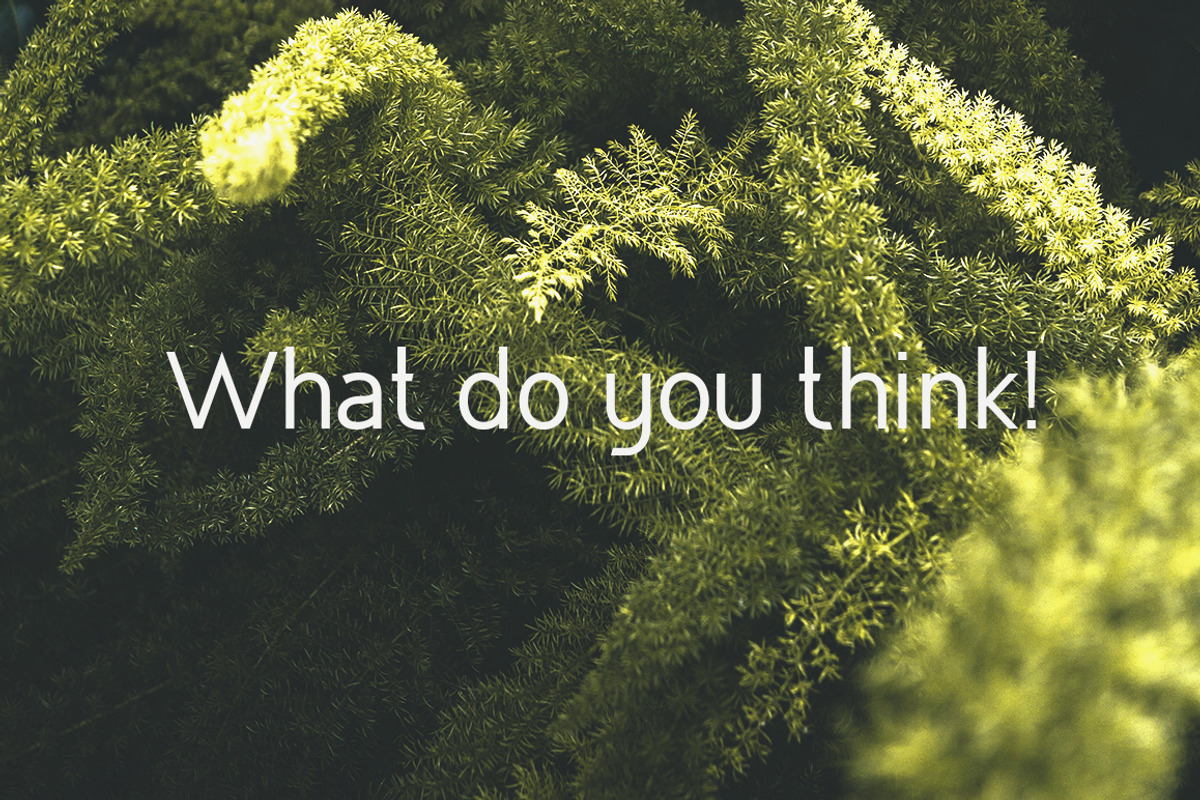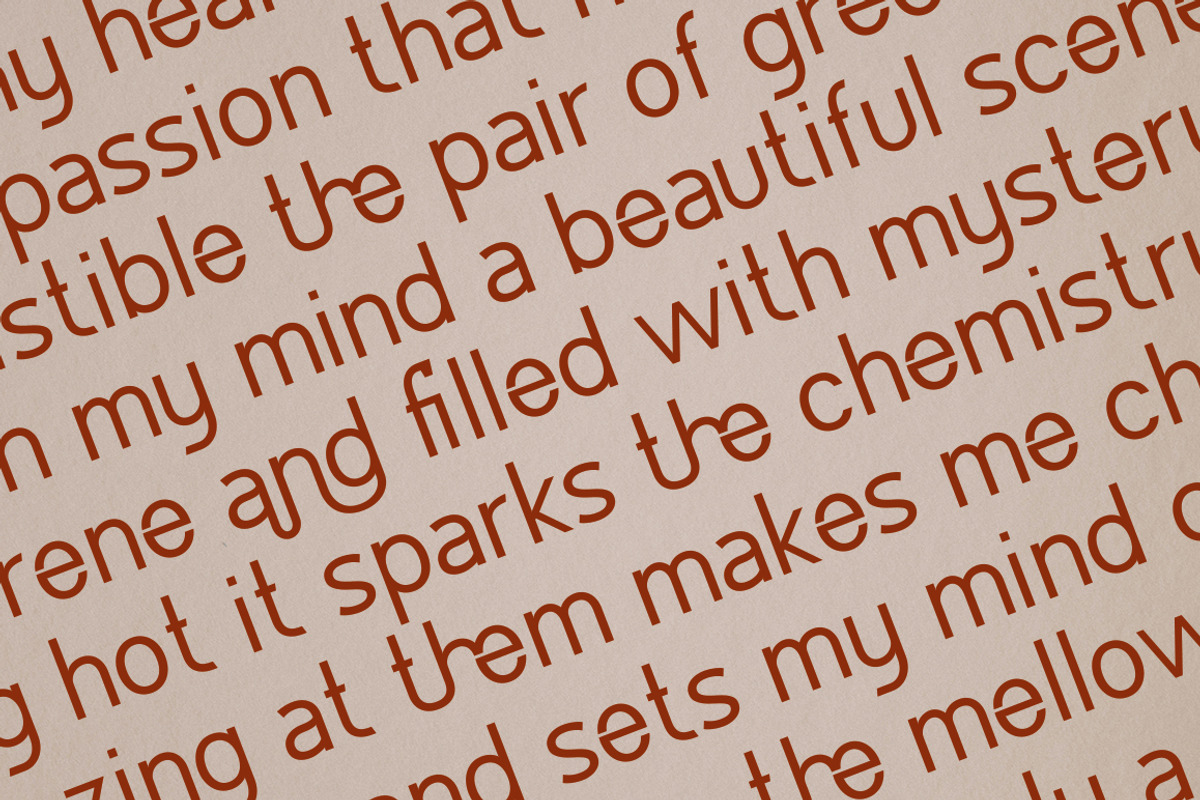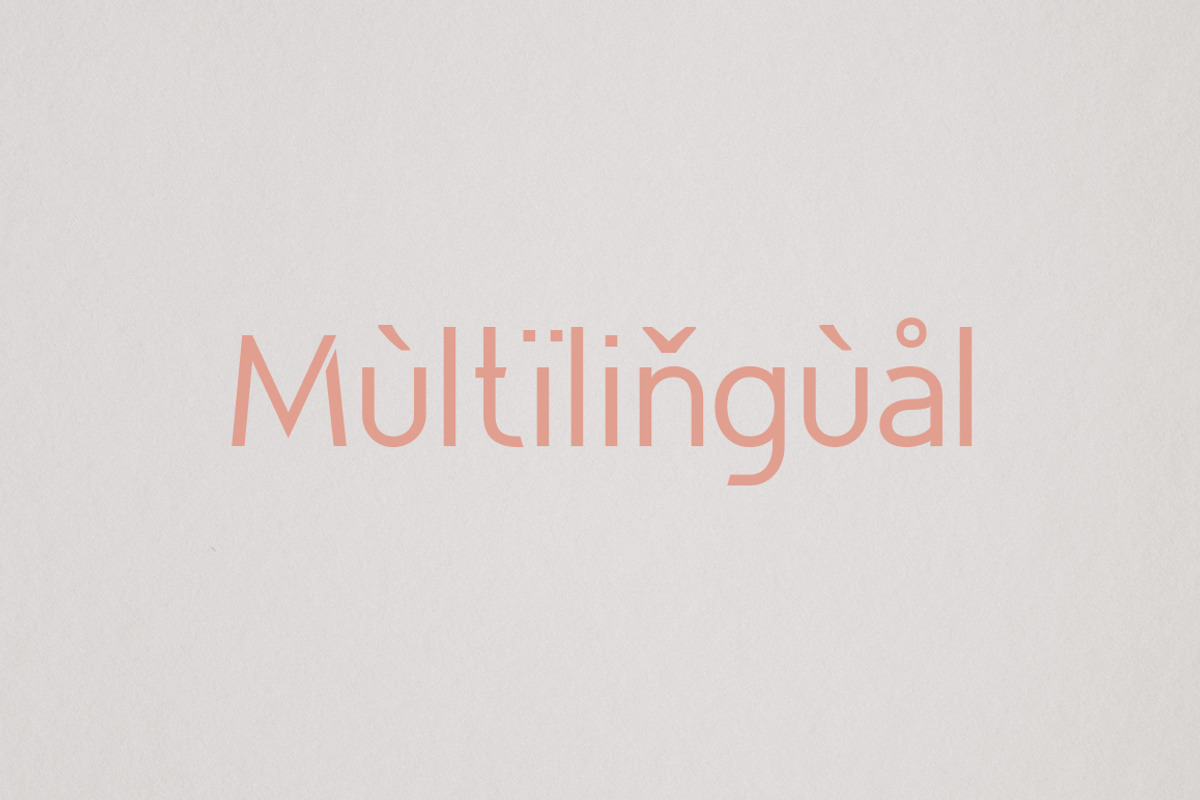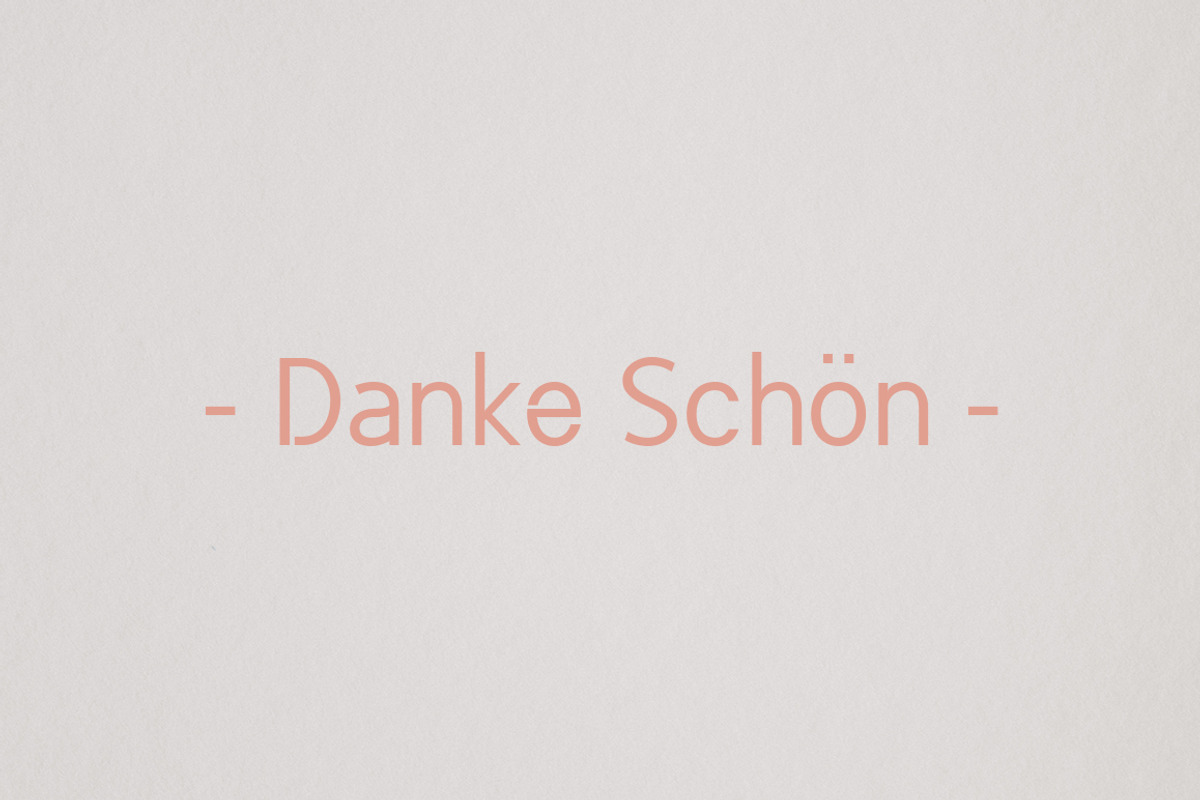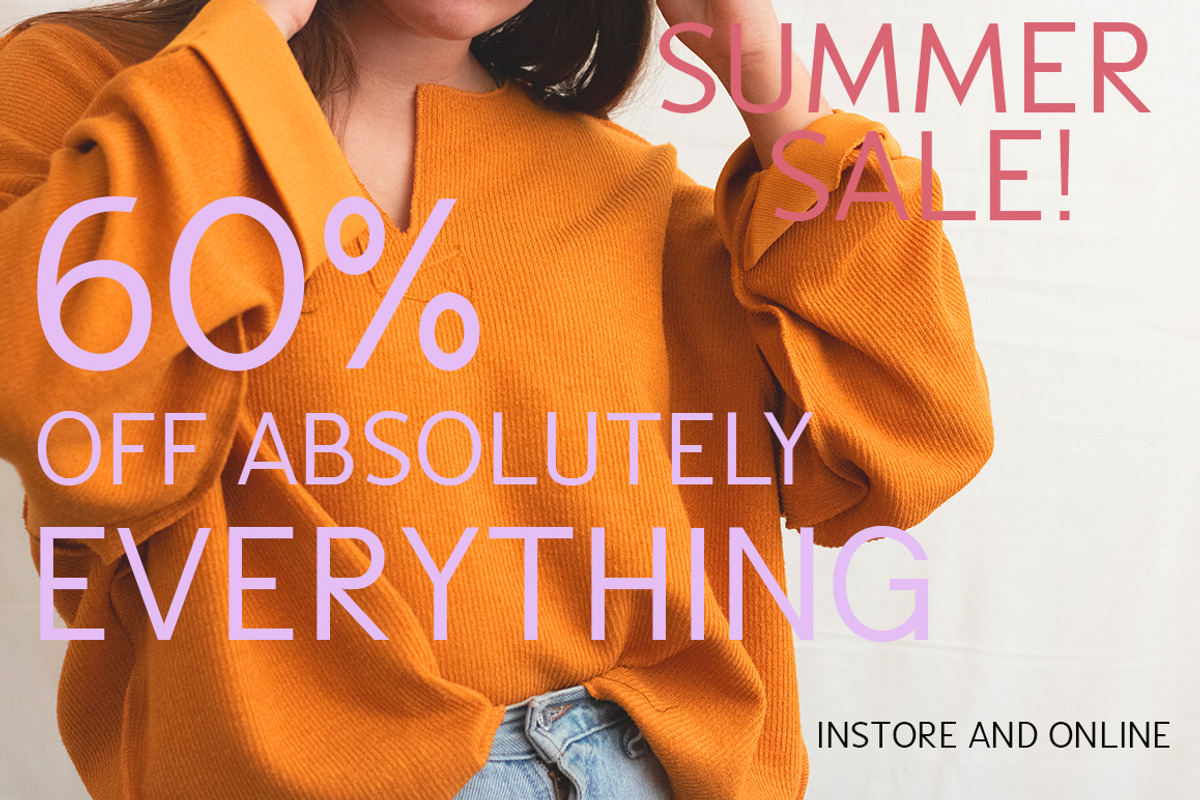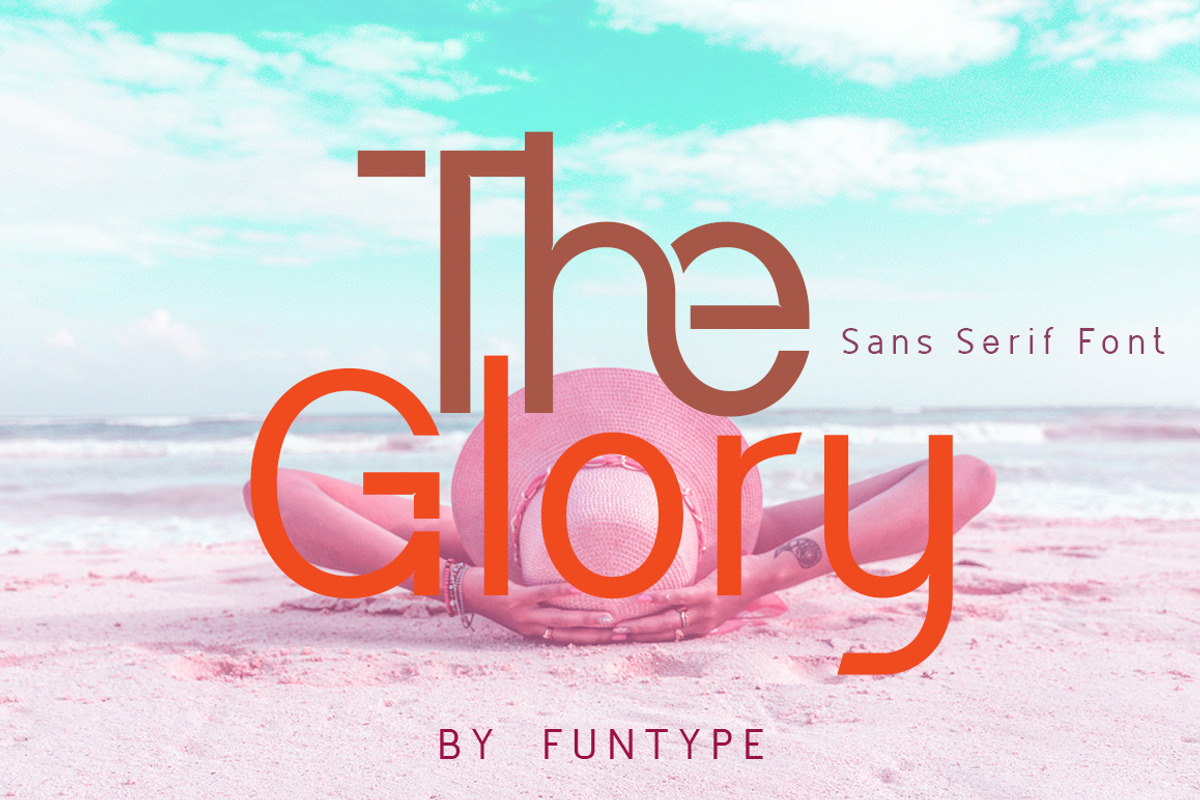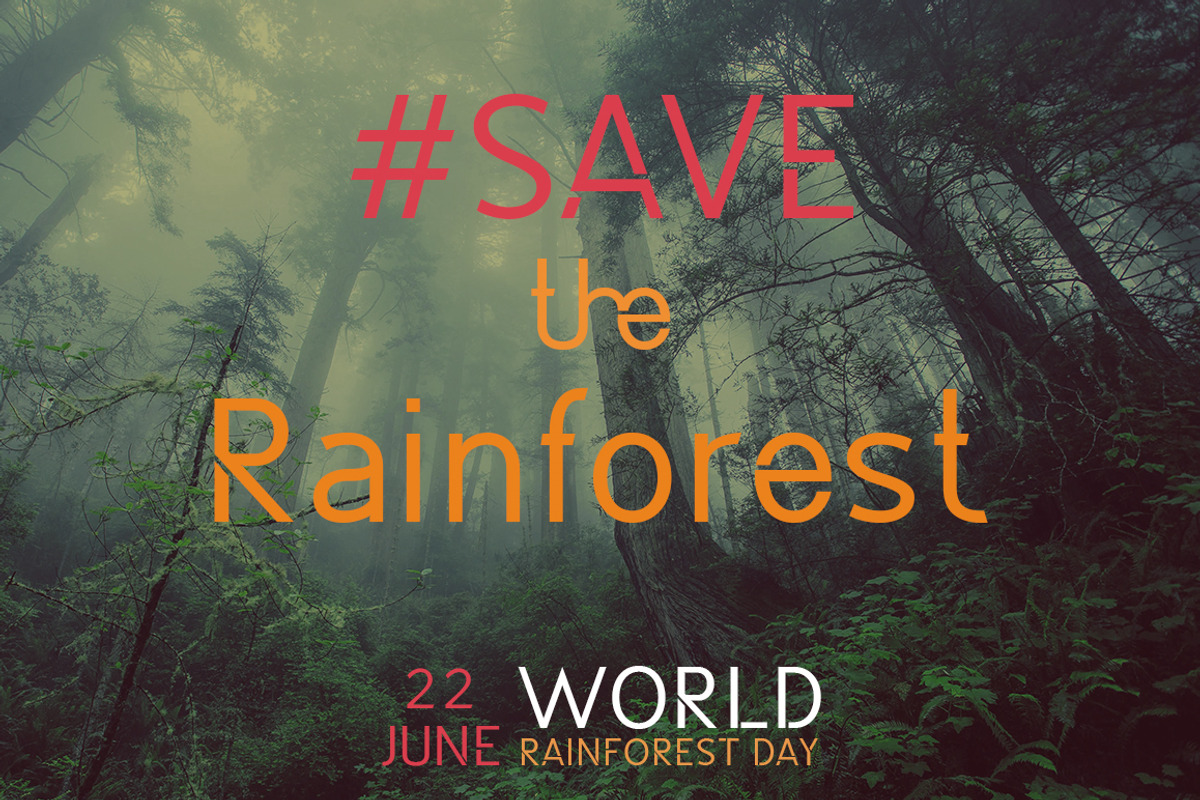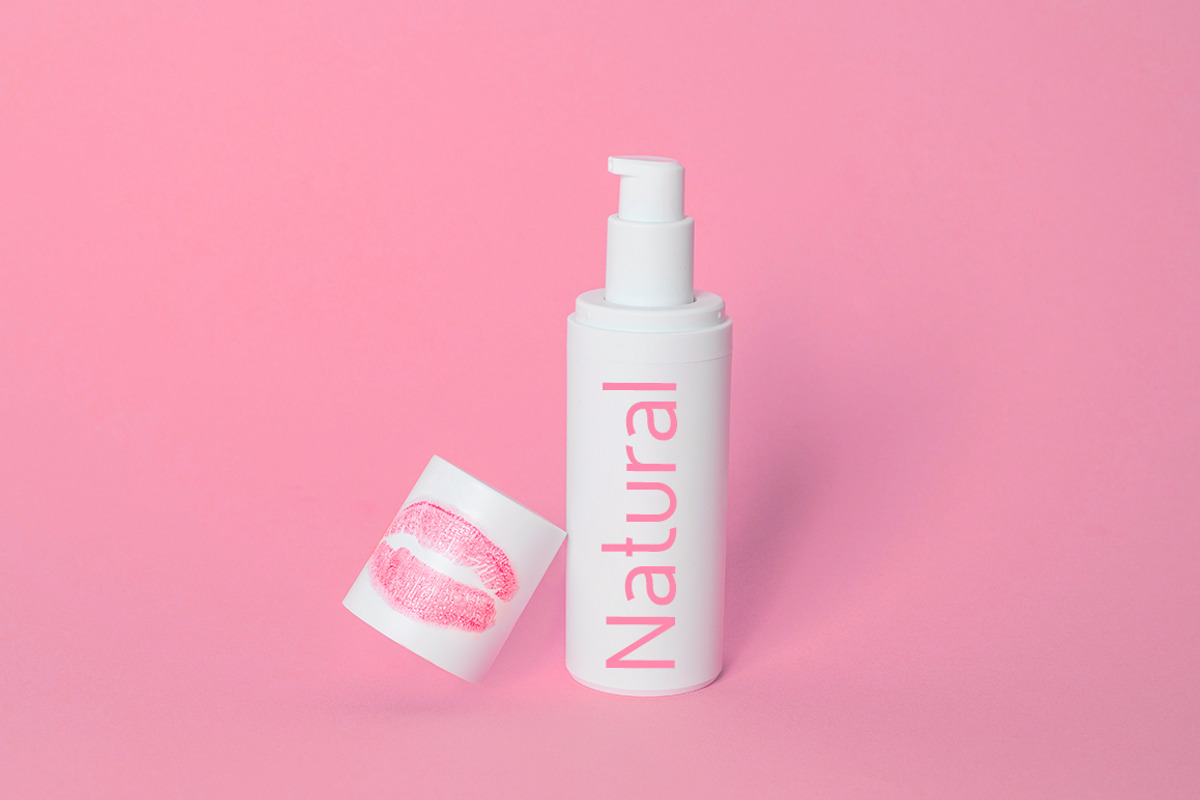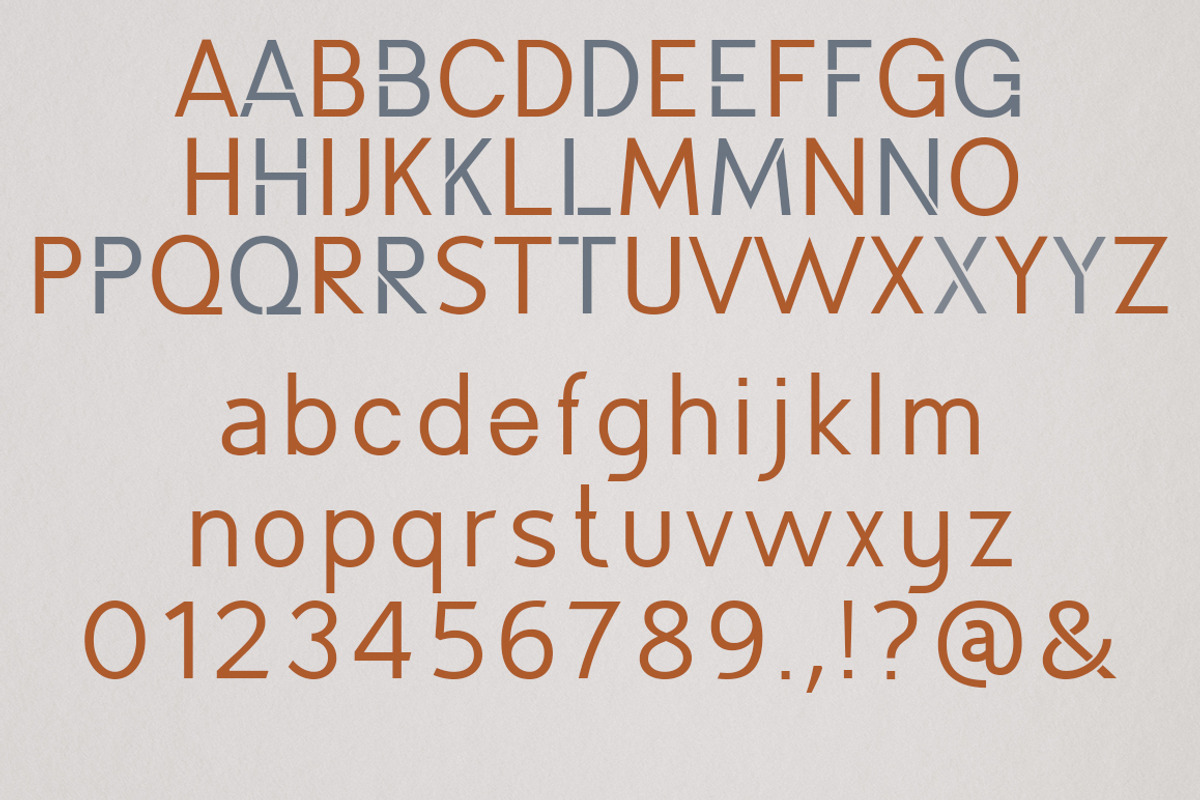
The Glory
The Glory is a sans serif font designed by me in 2023. The Glory is made to fit for various reading purposes. The Glory is fit for non-industrial themes, yet it can also be used for various designed needs.